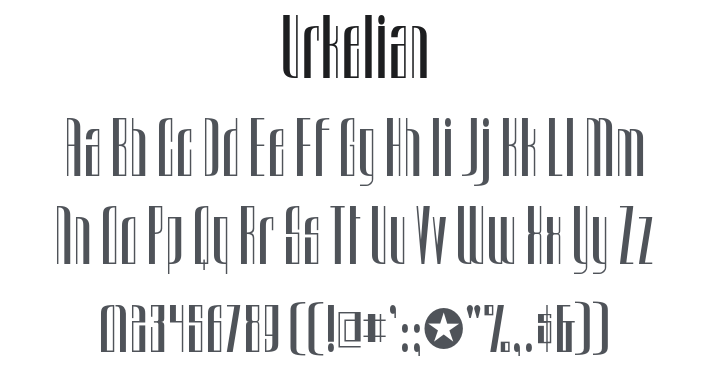
Urkelian Font
About Urkelian
Urkelian embraces the refined elegance of the Art Deco movement with slender proportions, geometric construction, and carefully balanced decorative details. Its distinctive letterforms create a sophisticated visual rhythm that feels both vintage and timeless. Ideal for luxury branding, fashion projects, editorial headlines, packaging, invitations, and period-inspired designs, the font adds personality and charm while maintaining a clean, polished appearance that stands out with effortless style.